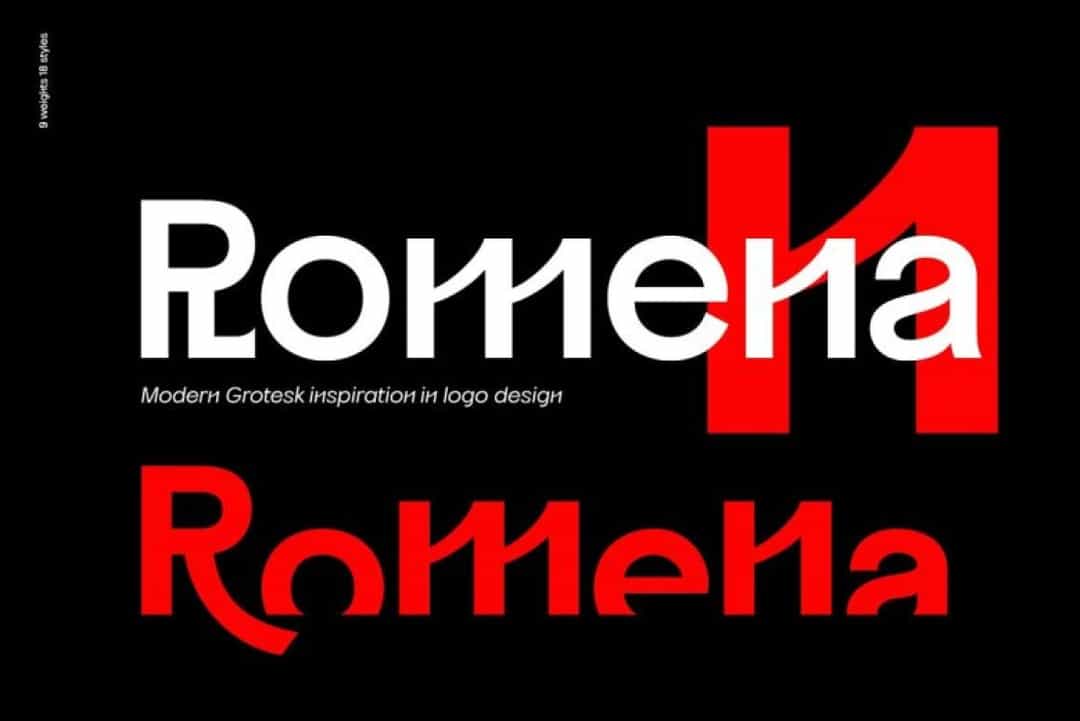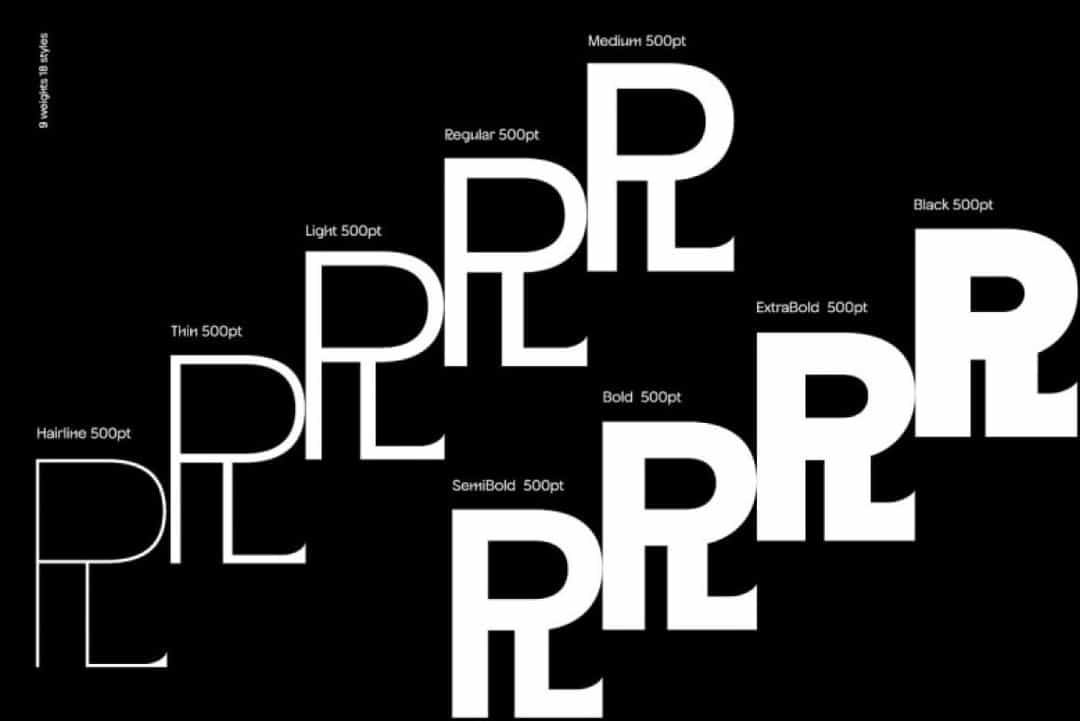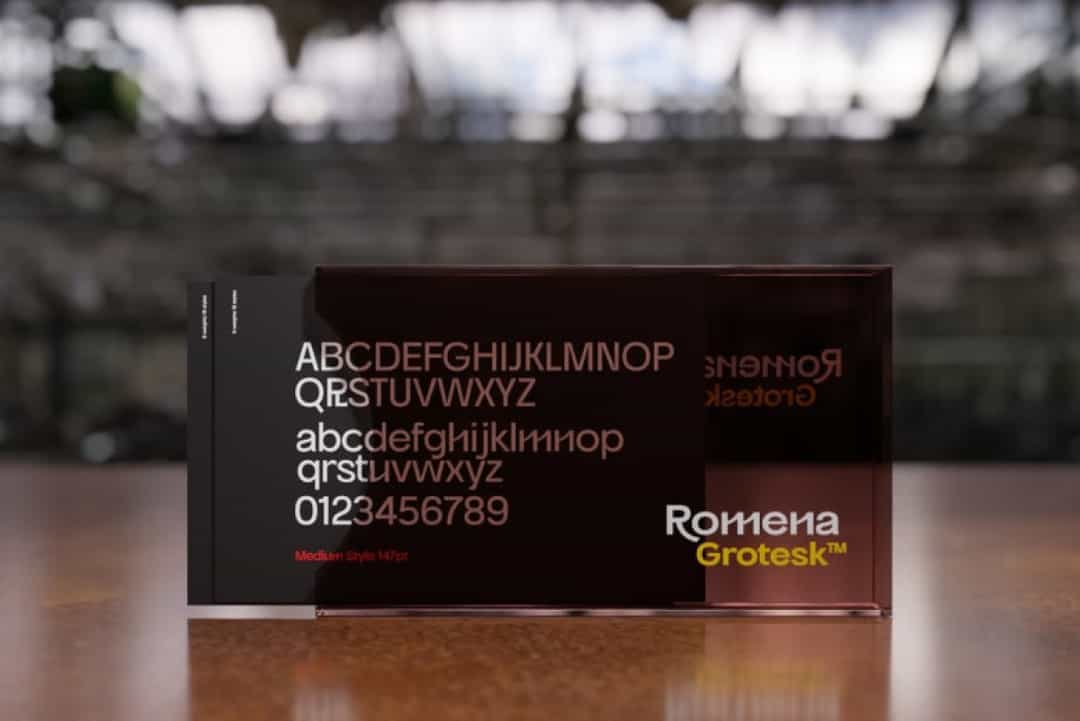
Romena Grotesk Sans Serif Font Family. It is a contemporary-styled grotesque family with the power to create powerful typography. Hairline Styles feature thinner lines than typical Thin Styles and have lower heights than Black Styles for optimal typographic designs. By using each font within this family to compose typographic pieces you will experience an amazing sense of harmony and balance when using all fonts in it in your typographic works.